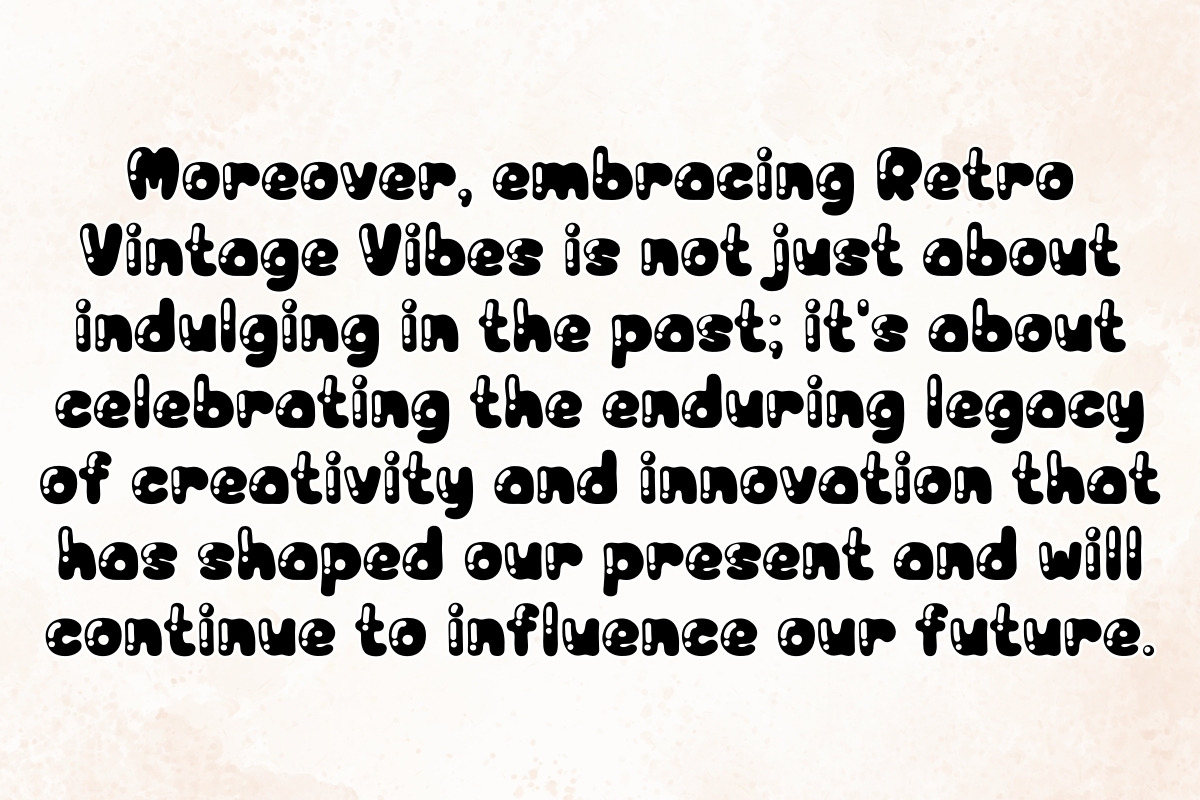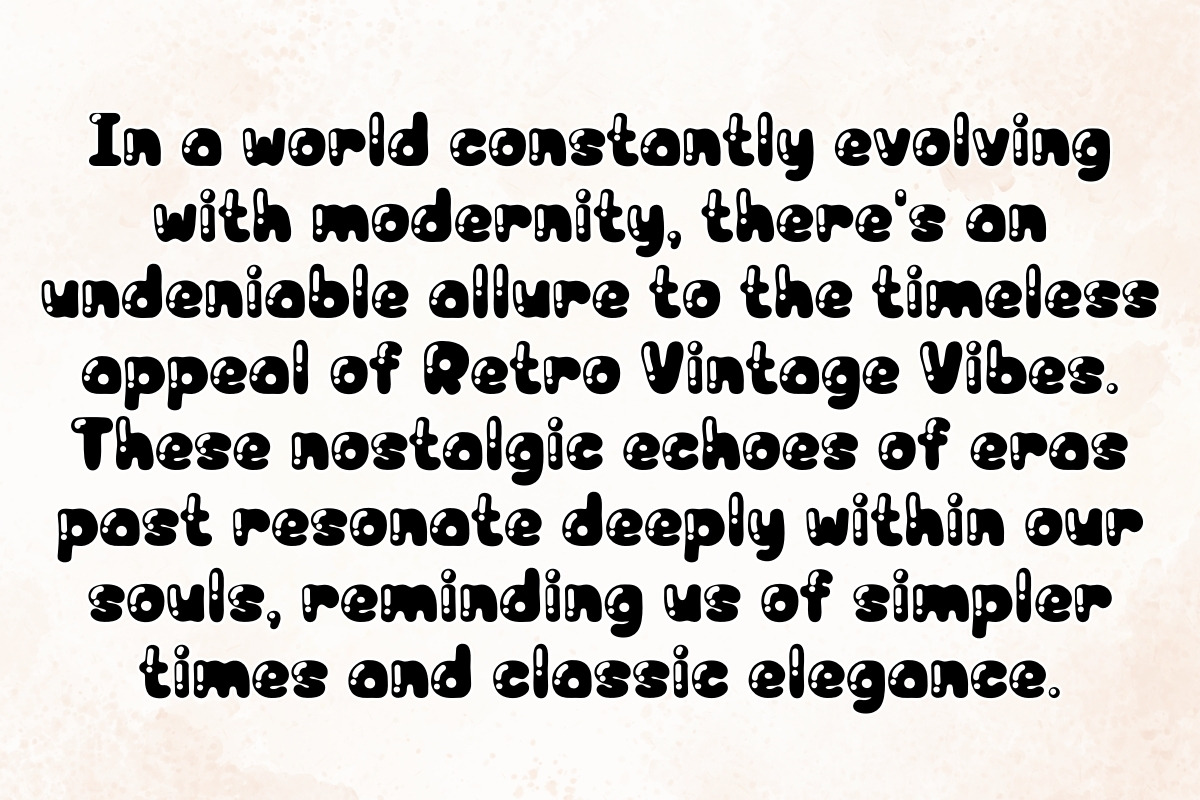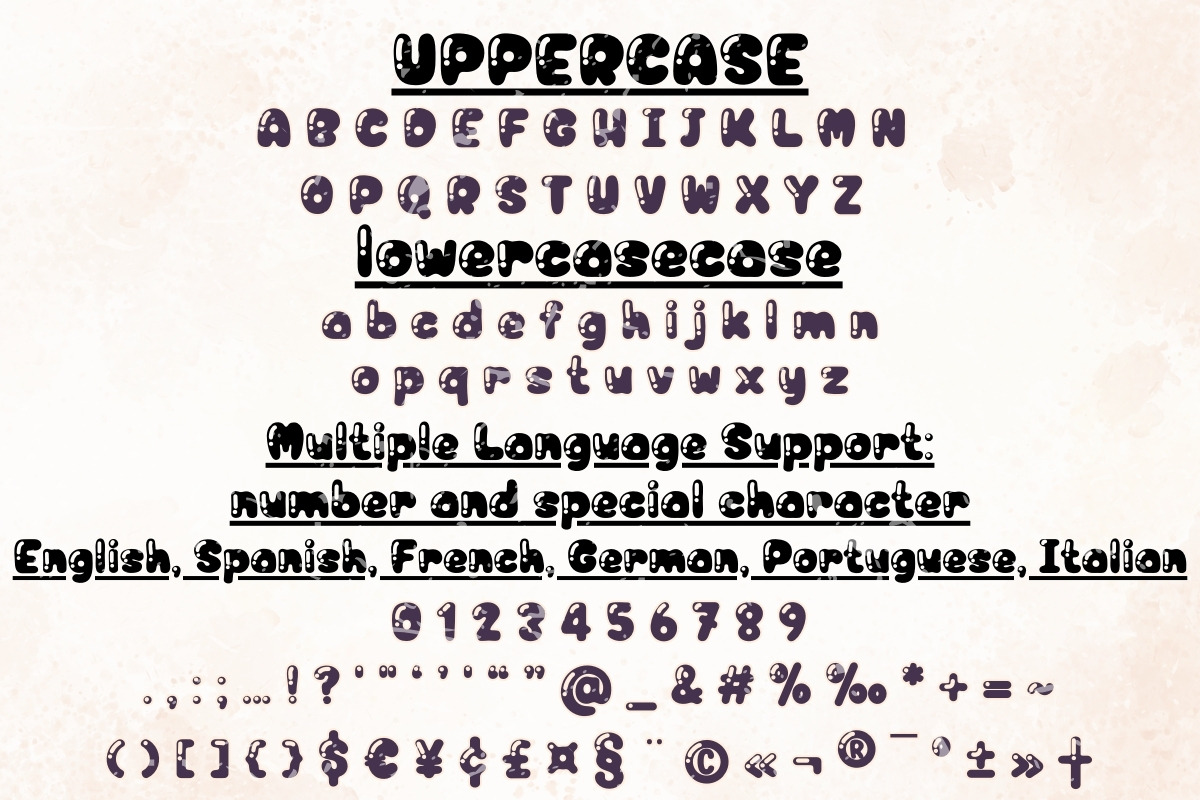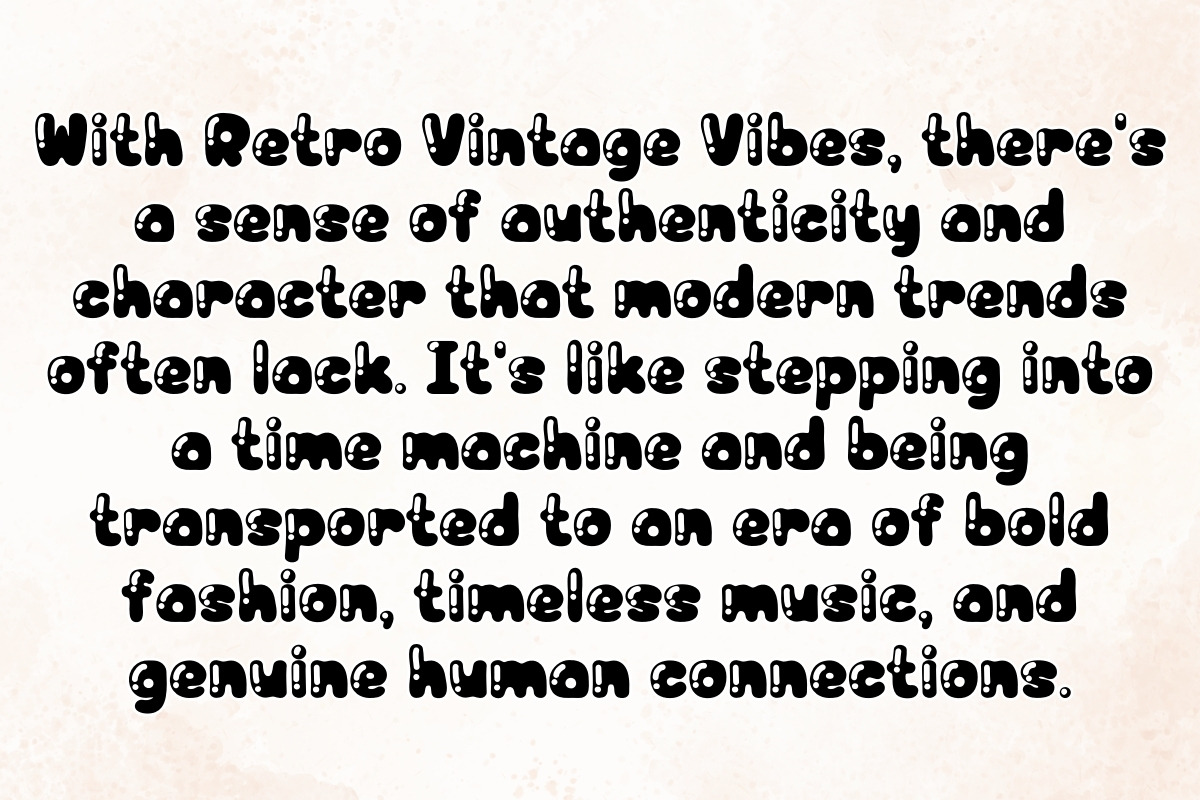
Retro Vintage Vibes - Handwritten
"Retro Vintage Vibes" is a charming handwritten font that exudes nostalgia and whimsy. With its elegant strokes and playful curls, this font adds a touch of vintage flair to any project. Whether you're creating invitations, posters, or greeting cards, "Retro Vintage Vibes" will infuse your designs with a delightful retro charm.